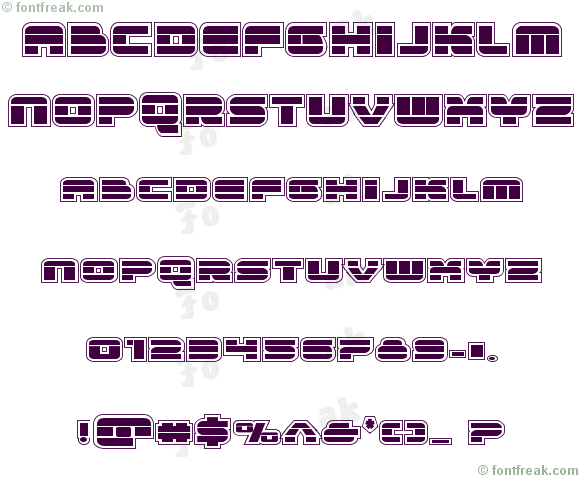
Quicken Outline Regular
Quicken Outline Regular, designed by Daniel Zadorozny, is a distinctive display font that falls within the decorative category. This typeface features a unique outline style that gives it a 3D effect, making it an eye-catching choice for various design projects. The stroke weight is consistent, with a balanced contrast that enhances its visibility, while the spacing between characters is thoughtfully designed to maintain clarity and legibility. The clean lines and geometric forms make it particularly versatile, allowing it to stand out without overwhelming other design elements.
This font is ideal for a range of creative applications. For instance, it excels in creating striking movie posters, where its bold presence can draw attention and convey dynamic themes. Additionally, Quicken Outline Regular can enhance branding materials for small businesses, giving logos and promotional items a modern and playful flair. Its unique characteristics also make it suitable for event invitations, such as birthday parties or casual gatherings, where a fun and engaging aesthetic is desired. Furthermore, content creators can utilize this font in social media graphics to achieve a memorable and impactful visual presence.
Targeting graphic designers, small business owners, and content creators, Quicken Outline Regular provides a fresh and lively option that can elevate any project. Its freeware license makes it accessible for both personal and commercial use, enabling creatives to experiment without financial constraints.
What truly sets the Quicken Outline Regular font apart is its ability to blend playfulness with sophistication, making it a versatile choice for various design needs. The combination of its outlined style and structured form results in a typeface that is not only visually appealing but also functional. For those looking to enhance their projects, the Quicken Outline Regular font free download is a fantastic option to consider.